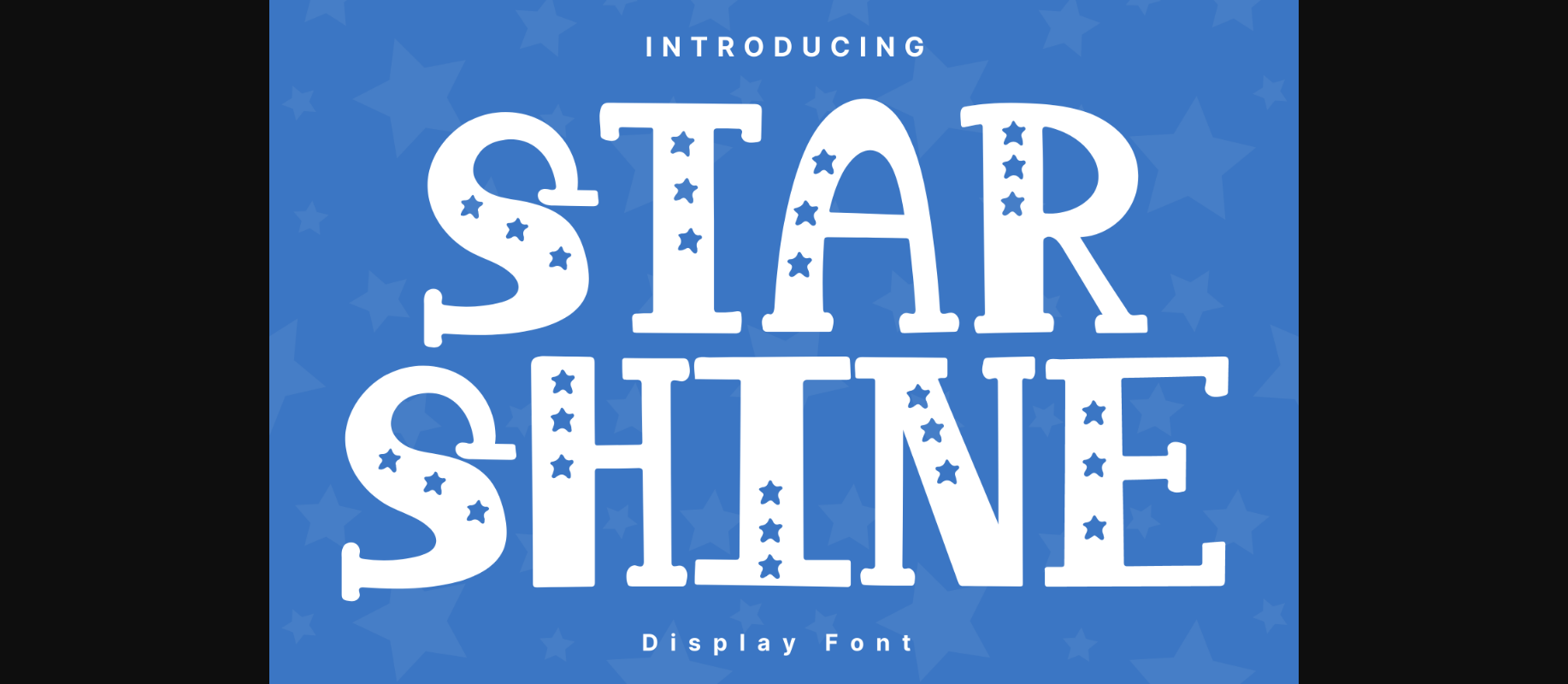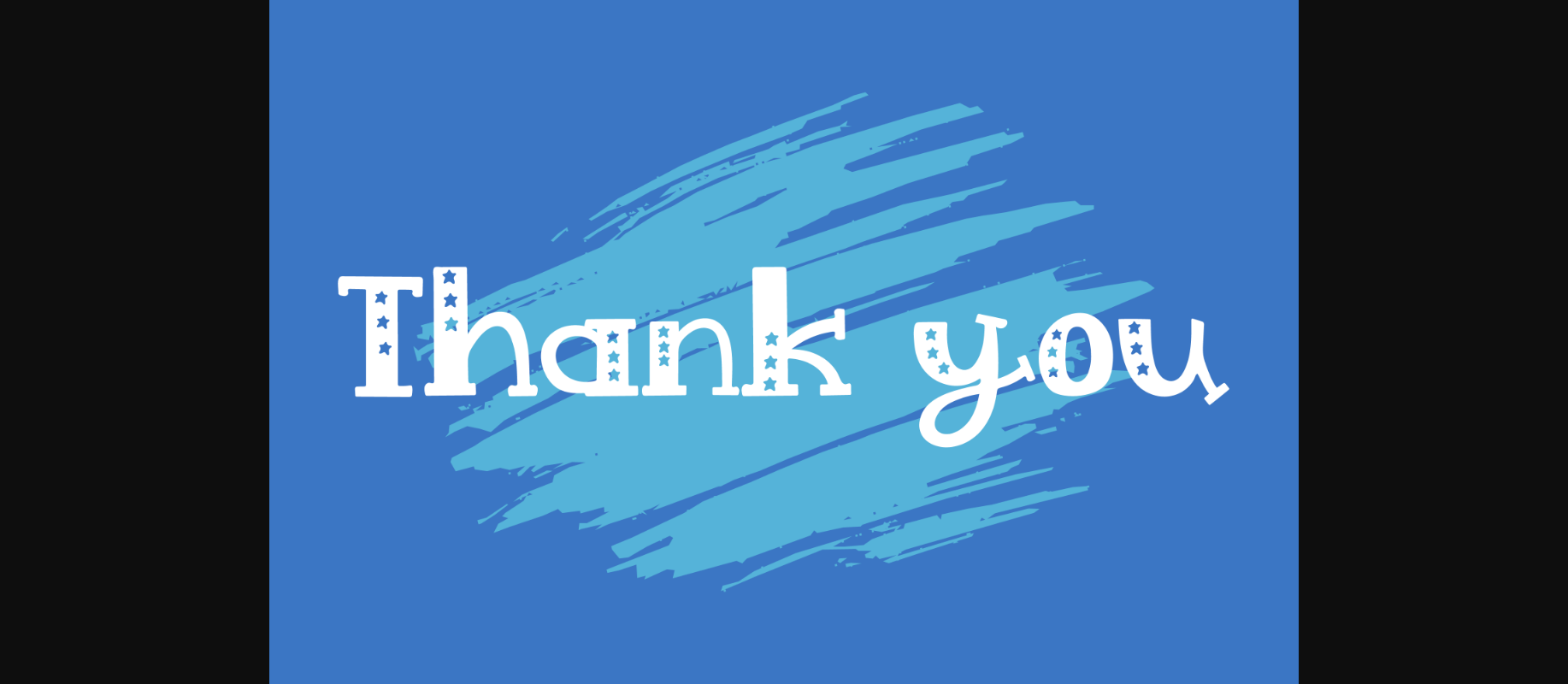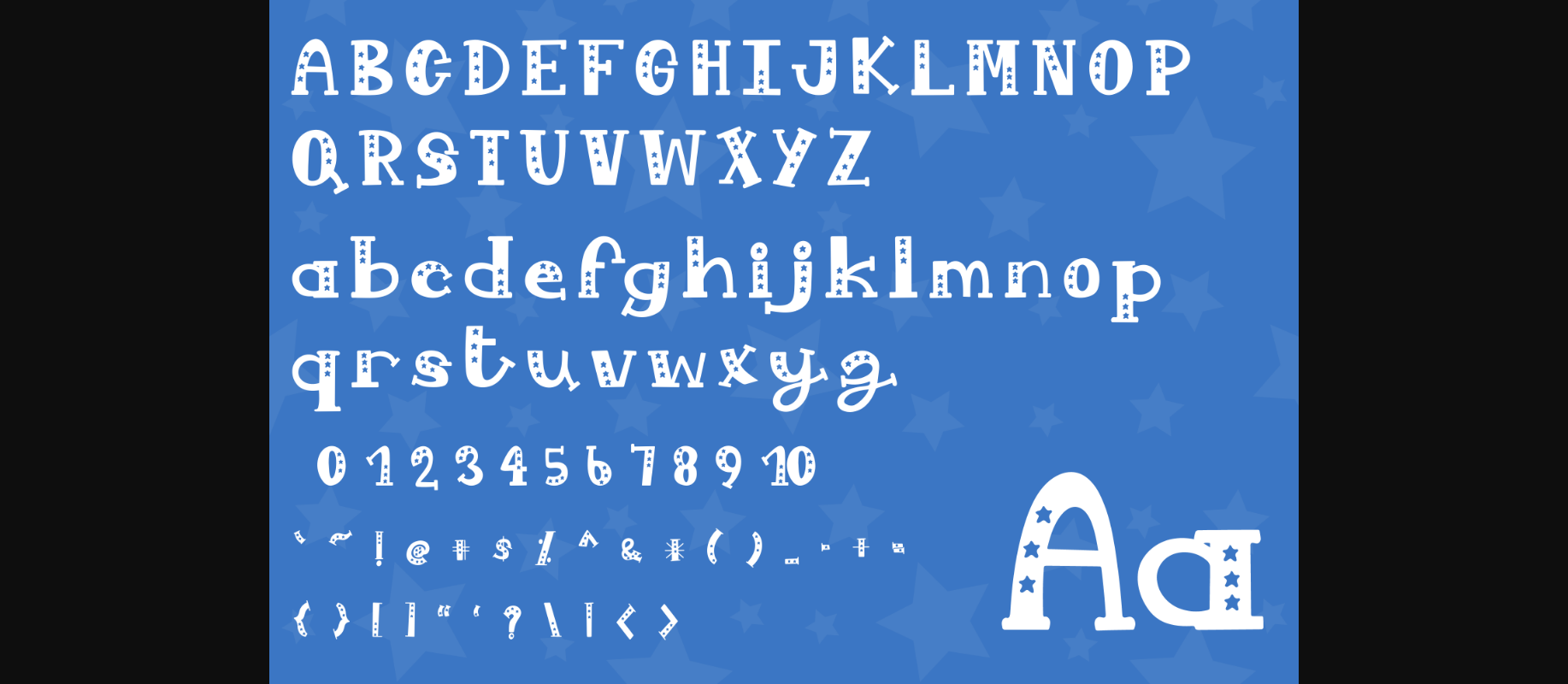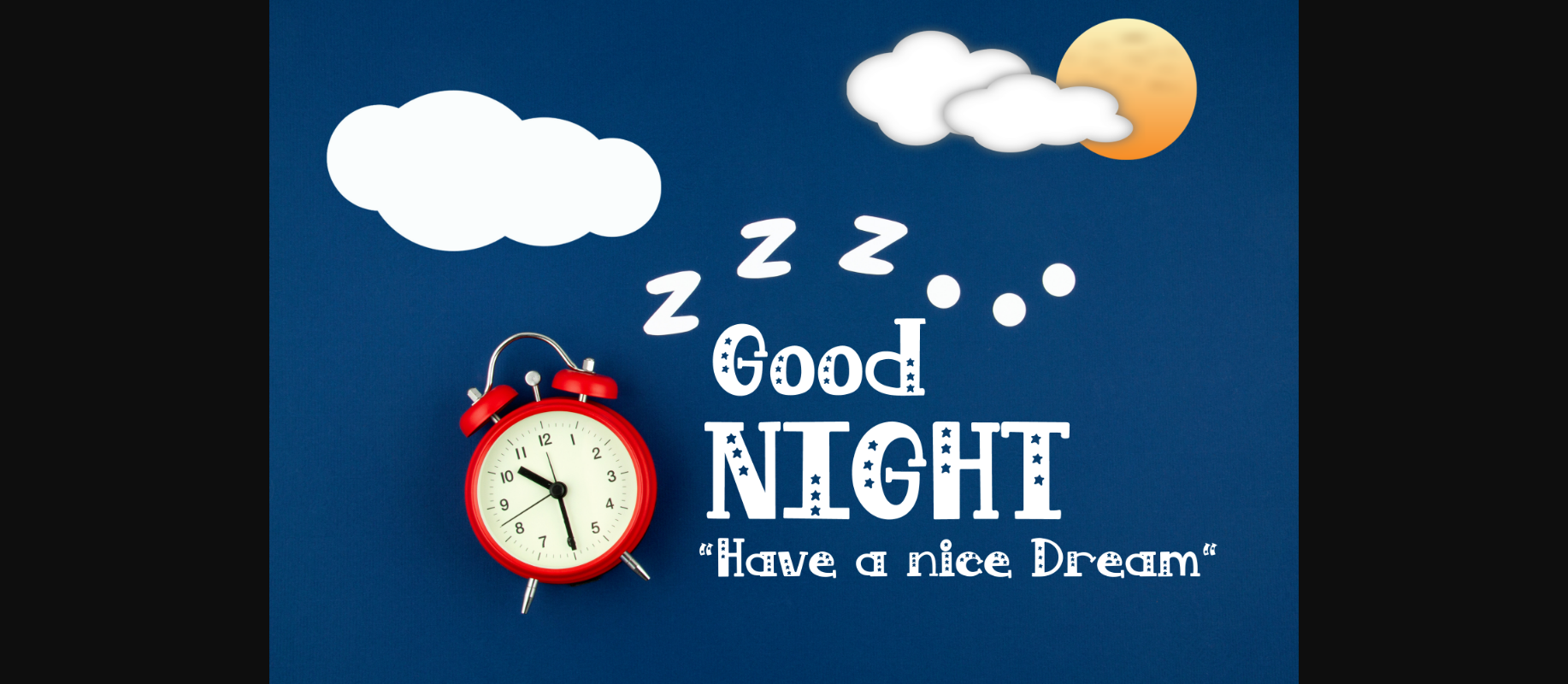
About Star Shine Font
Star Shine Style is a whimsical font. It can easily be matched to an incredibly large set of projects, so add it to your creative ideas and notice how it makes them stand out!